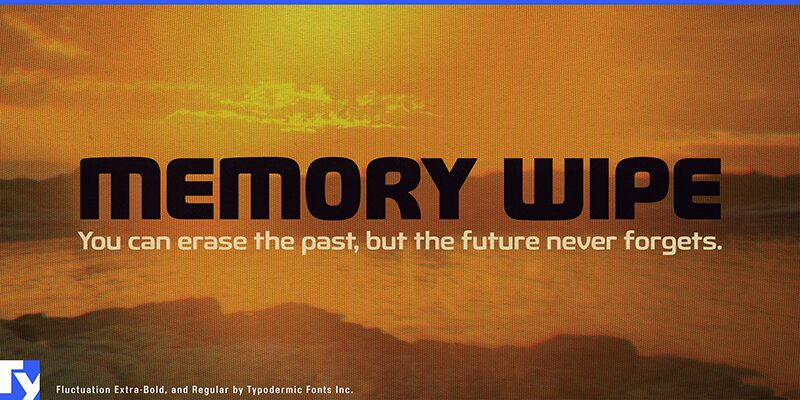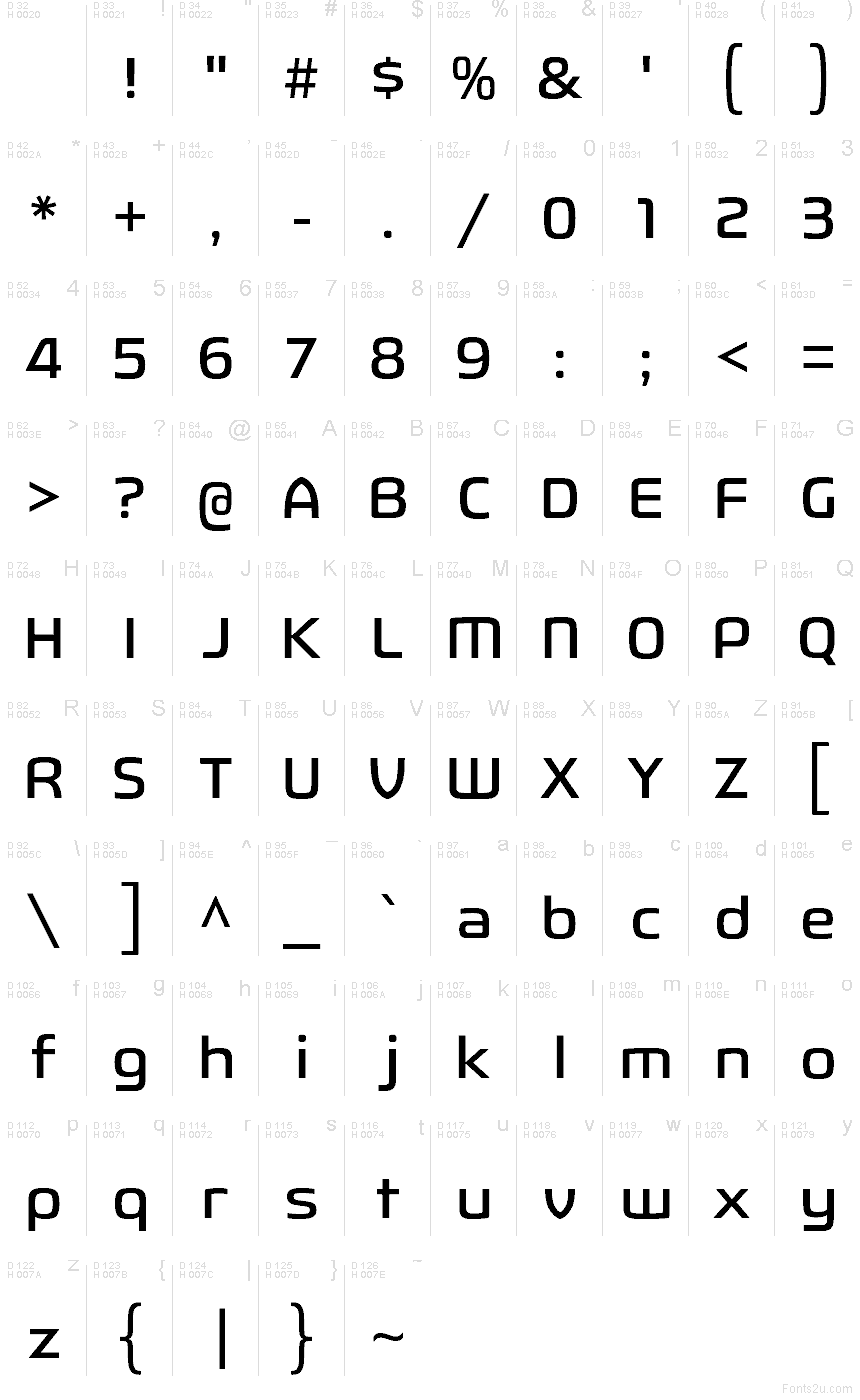
Fluctuation draws on the language of industrial design. Its forms echo the molded arcs, chamfers, and precision curves found in consumer electronics and appliances, giving the typeface a balance of engineered clarity and subtle warmth. Compact proportions make it well suited to tight UI layouts, tech branding, and signage where space matters. With clean geometry and broad Latin language support, Fluctuation moves easily from dashboards and packaging to editorial design while maintaining a crisp, modern edge.
Fluctuation Light